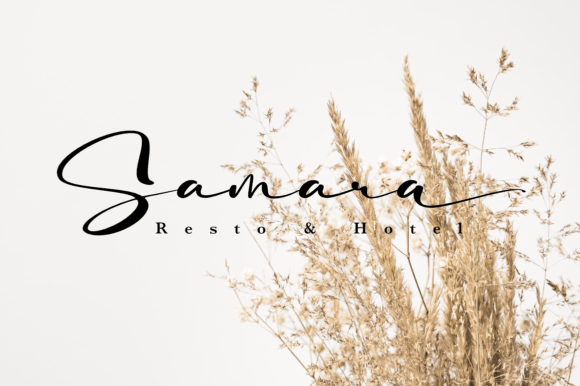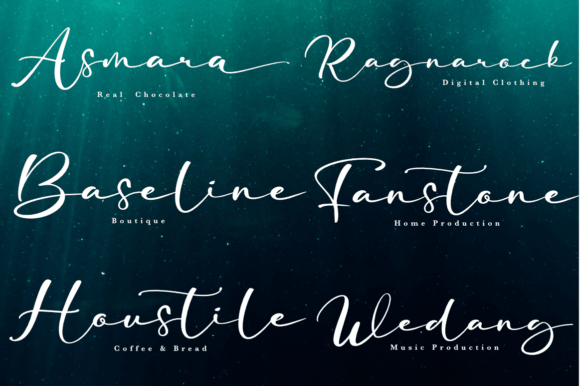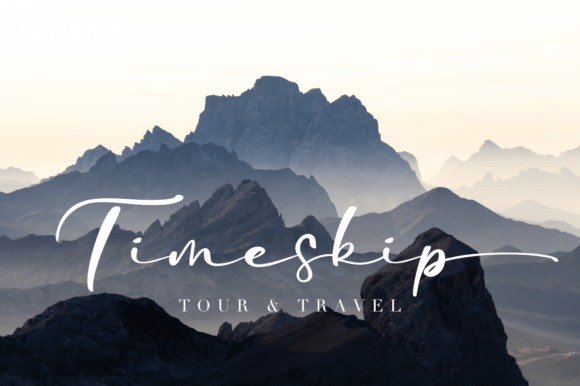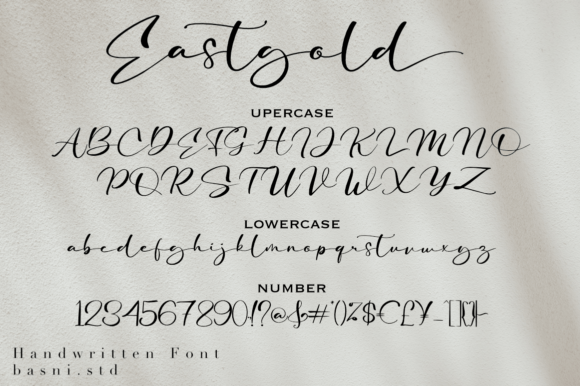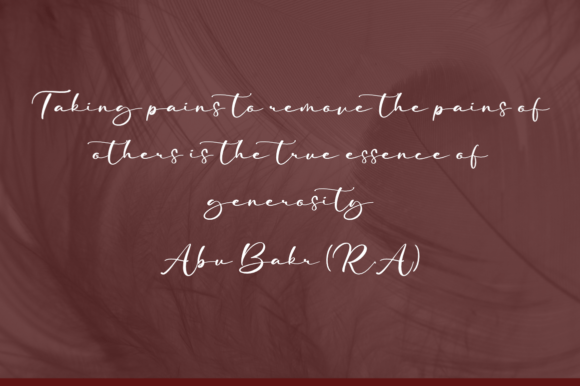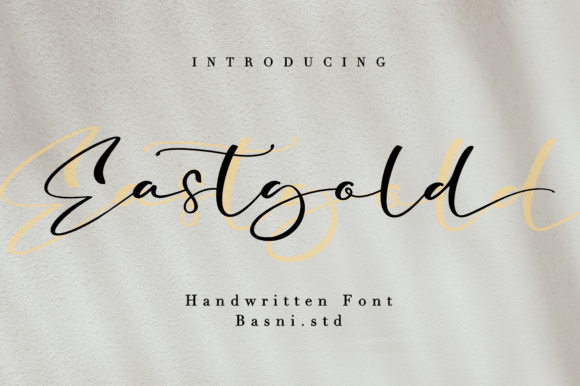
Introducing Eastgold: The Ultimate Handwritten Font for Designers and Crafters
In the world of typography, a good font can make all the difference in the success of a design project. Whether you’re a seasoned designer or a crafty DIY enthusiast, finding the perfect font can be a daunting task. That’s why we’re excited to introduce Eastgold, a beautiful handwritten font that’s perfect for branding, websites, design invitations, and editorial designs.
What is Eastgold?
Eastgold is a carefully crafted handwritten font that’s designed to add a touch of elegance and sophistication to any design project. With its flowing lines and delicate curves, Eastgold is perfect for creating beautiful and eye-catching designs that stand out from the crowd.
Key Features of Eastgold
- PUA Encoded: Eastgold is PUA (Private Use Area) encoded, which means you can access all of the glyphs and swashes with ease. This makes it easy to use and customize the font to suit your design needs.
- Handwritten Style: Eastgold has a beautiful handwritten style that’s perfect for creating unique and personalized designs.
- Versatile: Eastgold is a versatile font that can be used for a wide range of design projects, including branding, websites, design invitations, and editorial designs.
Why Choose Eastgold?
So why choose Eastgold over other fonts? Here are just a few reasons why Eastgold stands out:
- Unique and Eye-Catching: Eastgold has a unique and eye-catching design that’s sure to grab attention.
- Elegant and Sophisticated: Eastgold has an elegant and sophisticated feel that’s perfect for high-end designs.
- Easy to Use: Eastgold is easy to use and customize, thanks to its PUA encoding.
How to Use Eastgold
Using Eastgold is easy. Here are a few tips to get you started:
- Branding: Use Eastgold to create beautiful and eye-catching logos, business cards, and other branding materials.
- Websites: Use Eastgold to add a touch of elegance and sophistication to your website.
- Design Invitations: Use Eastgold to create beautiful and unique invitations for weddings, parties, and other special events.
- Editorial Designs: Use Eastgold to add a touch of elegance and sophistication to your editorial designs, such as magazines and newspapers.
In conclusion, Eastgold is a beautiful handwritten font that’s perfect for designers and crafters who want to add a touch of elegance and sophistication to their design projects. With its PUA encoding, handwritten style, and versatility, Eastgold is a font that’s sure to become a staple in your design arsenal. So why wait? Download Eastgold today and start creating beautiful and eye-catching designs that stand out from the crowd!